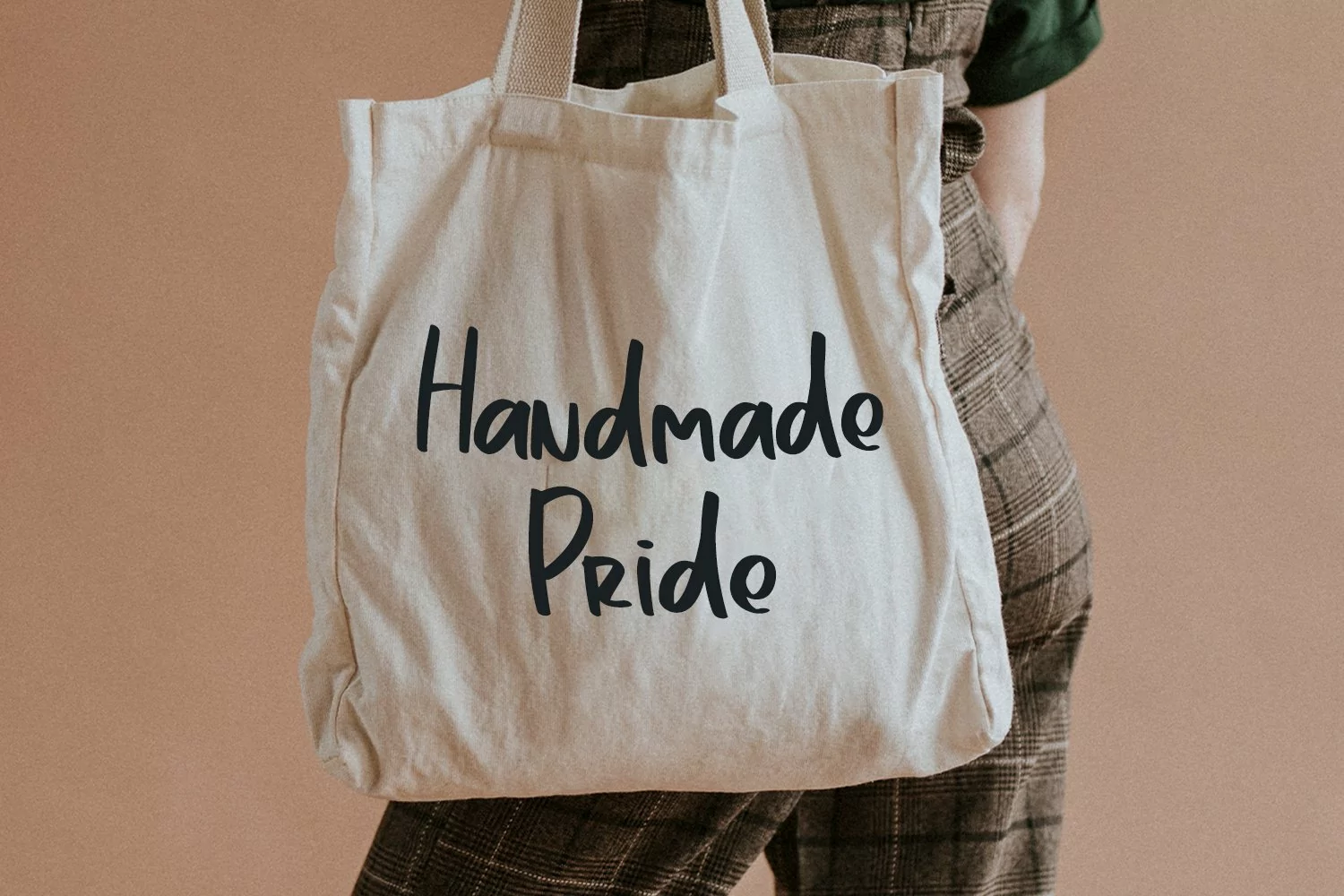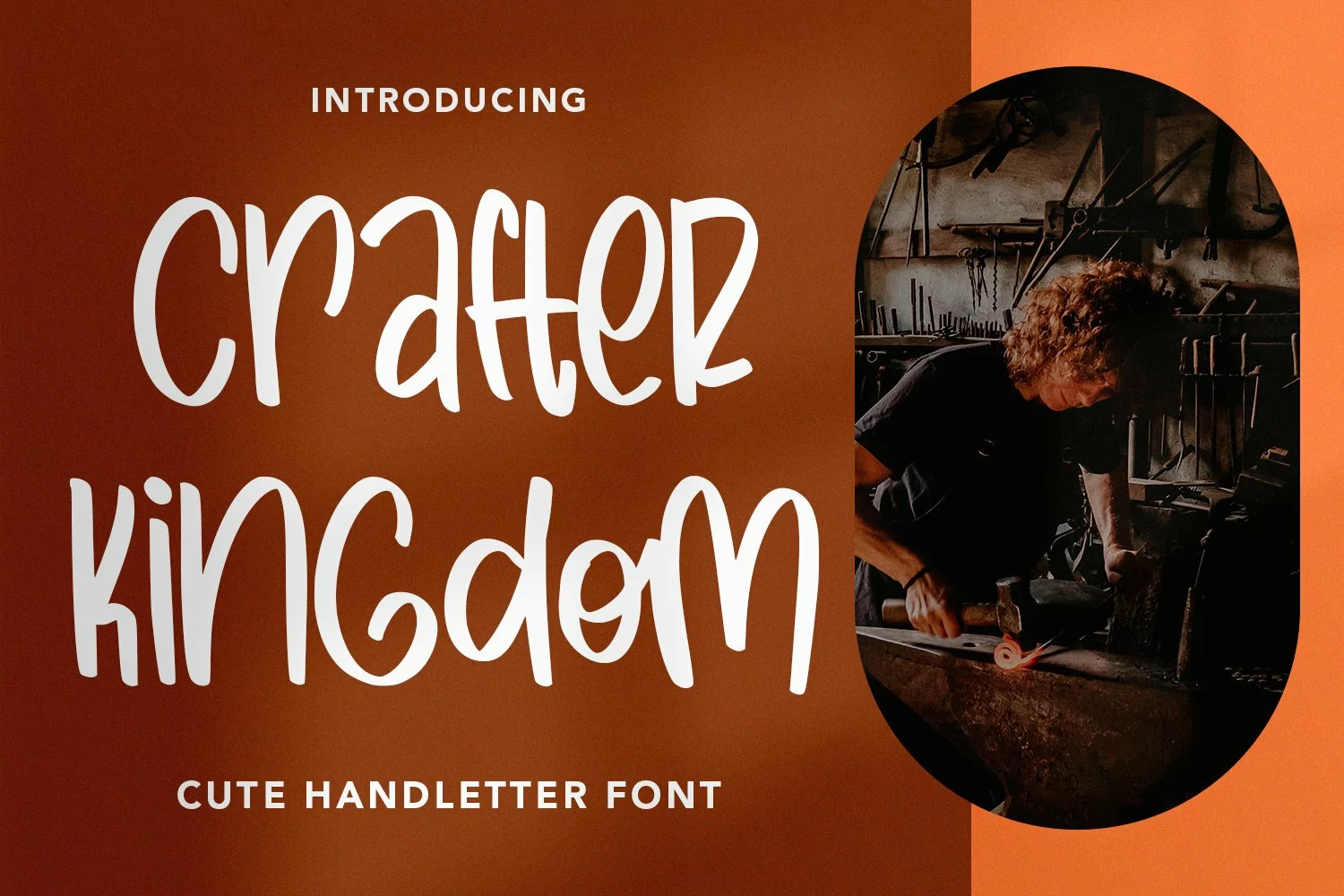
CrafterKingdom - Cute Handletter Font that contain lowercase, uppercase, symbol, and also support multi language. There’s a lot ligatures in this font. This Font also comes with ligatures, alternates and many more. this font suitable for fashion, branding, catalog and other design what you want.